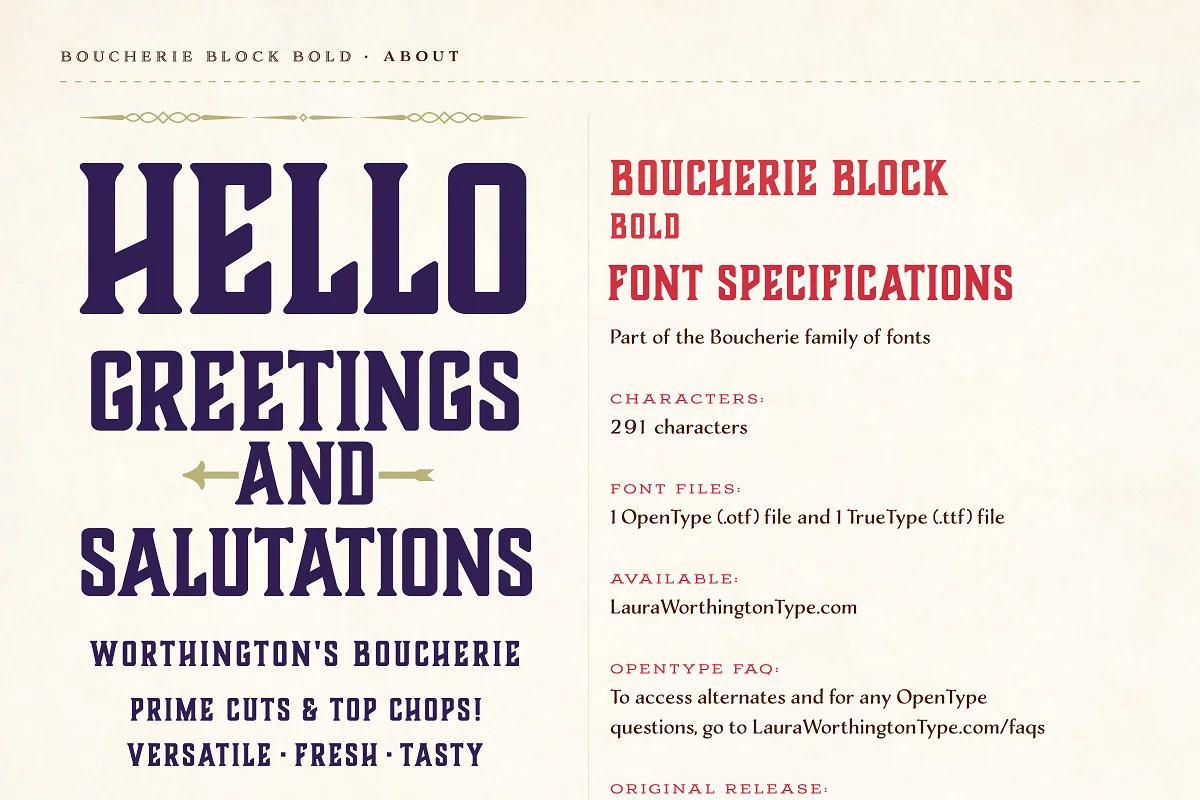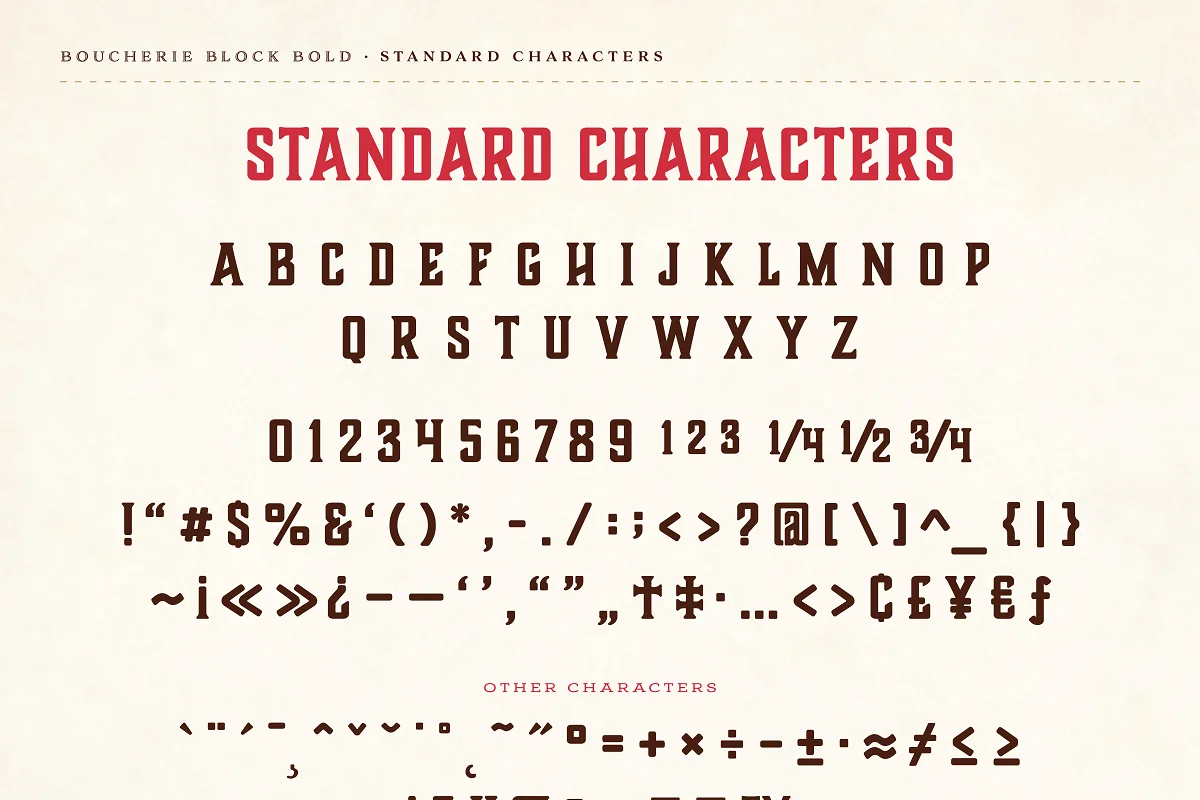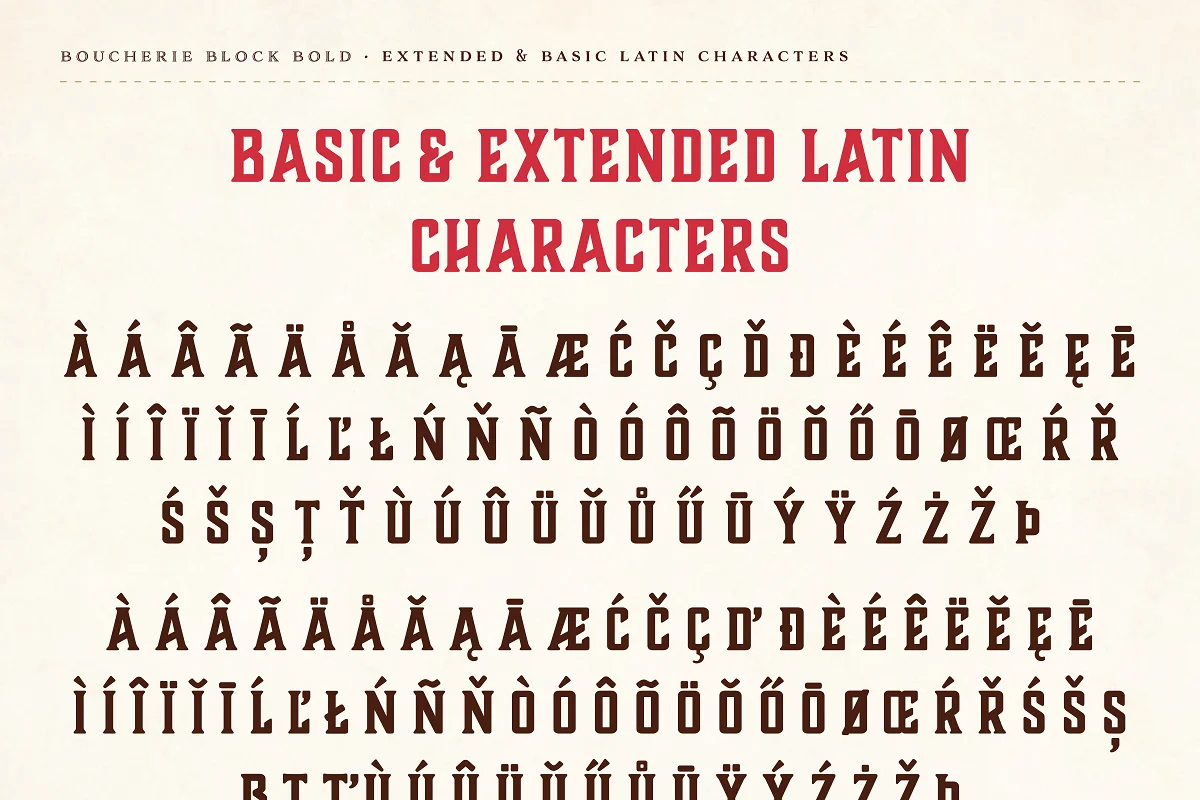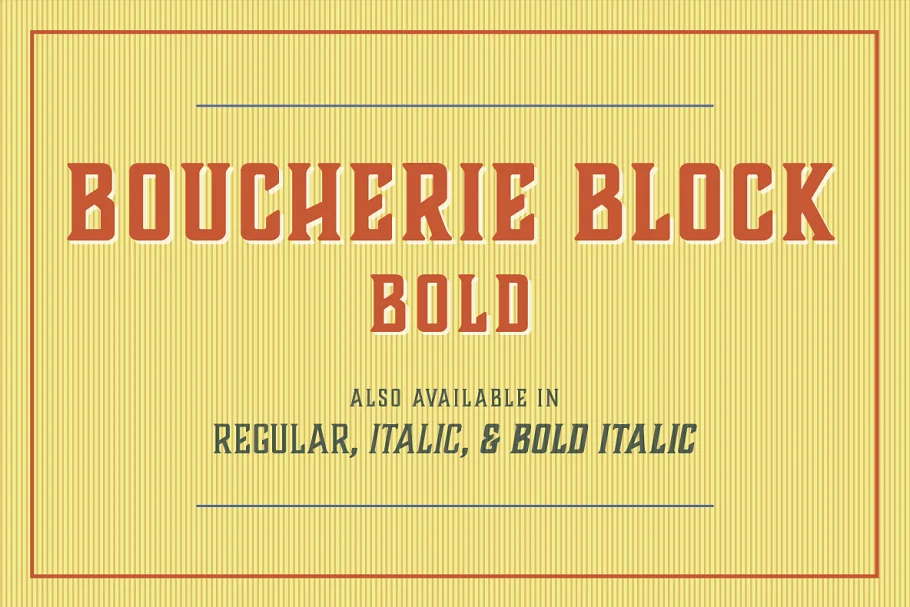
About the Boucherie Block Bold Font
Boucherie Block is part of the Boucherie Collection – a series of 16 distinct, yet related typefaces.
With its thick wedge serifs and steeply angled crossbars and terminals, Boucherie Block cuts a bold impression.
Set it large and tight for searingly effective headlines.